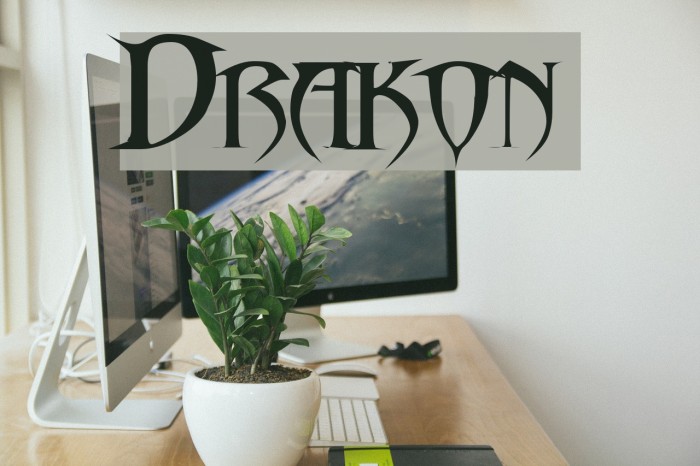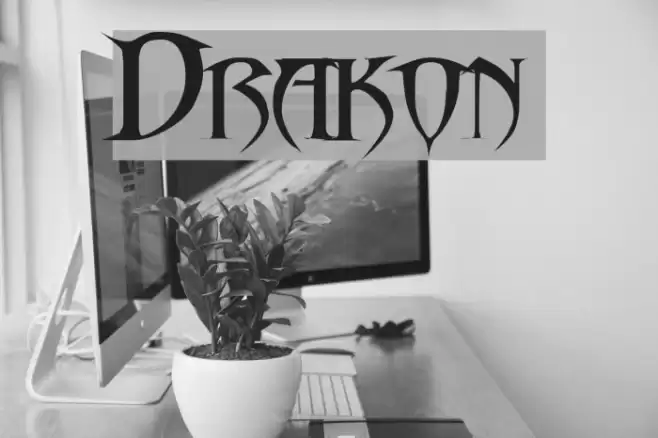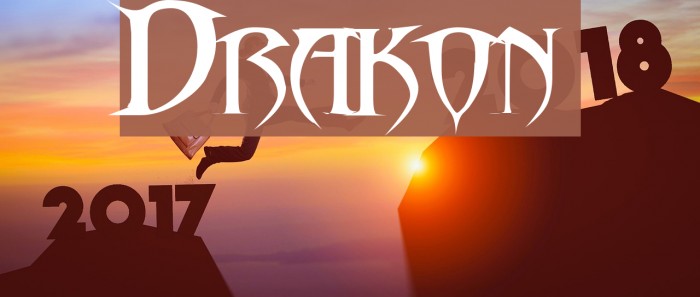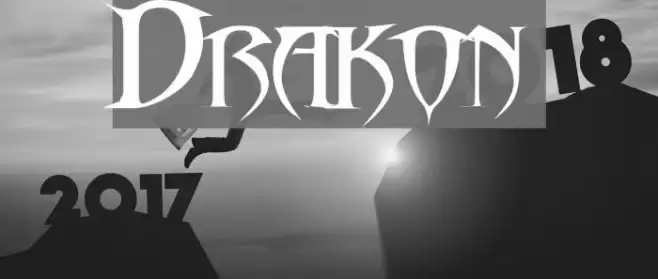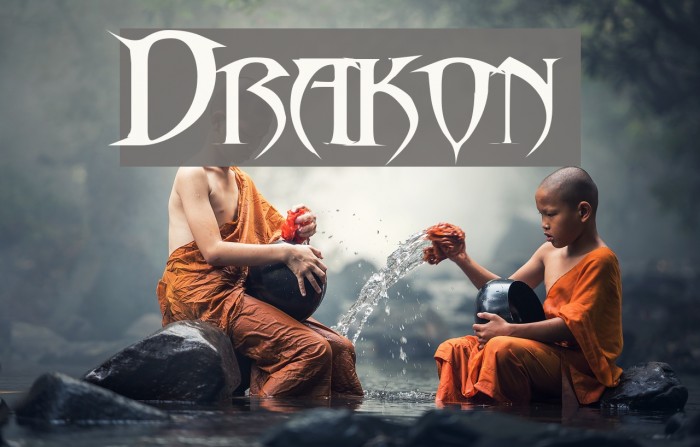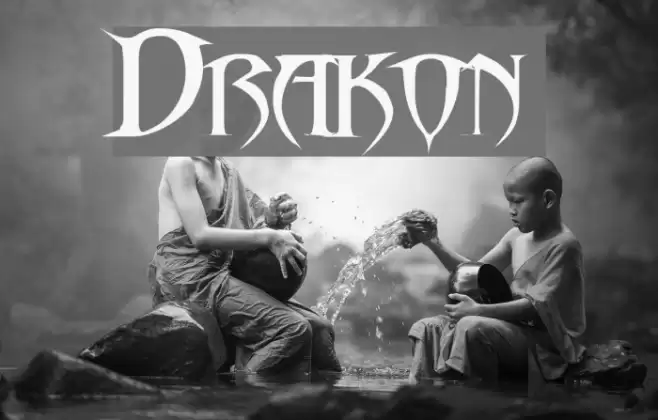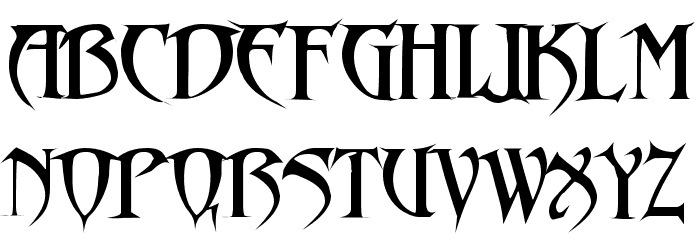
Drakon Font
Drakon Description
This font is a striking and bold display typeface characterized by its sharp, angular lines and dramatic flair. The uppercase letters feature pointed serifs and intricate detailing, reminiscent of medieval or gothic styles. The overall appearance is both aggressive and elegant, making it ideal for projects that require a strong visual impact. The lack of lowercase letters and numbers suggests a focus on decorative uses, where the emphasis is on creating a memorable and distinctive look. The font's unique style is perfect for fantasy-themed designs, branding for edgy or alternative products, and any project that seeks to convey a sense of mystery or power.
| Overall Style | Gothic, Decorative |
| Use Case | Logos, Headlines, Posters |
| Proposed Projects | Ideal for fantasy-themed designs, edgy branding, and projects needing a strong visual impact. |